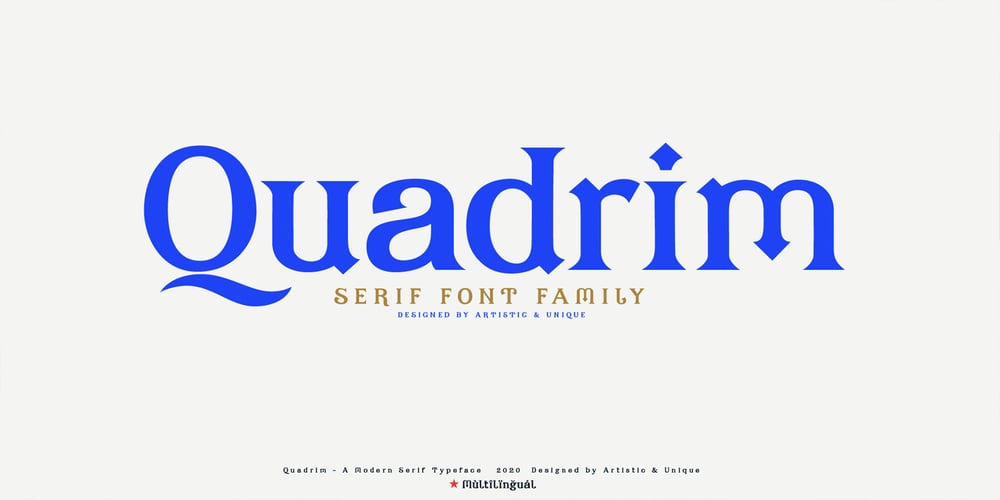
Quadrim
Quadrim font
Quadrim Font Family was designed by Osman Taner Kucukgenc and published by Artisticandunique. Quadrim contains 12 styles and family package options. Quadrim – Serif Font Family – Multilingual -12 Style (2020)On the basis of Quadrim, it is a mix of the old-fashioned Roman serif family. The old style serif combination combines, modern aesthetics with fantasy and Art Nouveau serif fonts, making Quadrim a versatile family that can be used in many different design projects.This font offers a wide variety of styles to help you discover the best mood for your projects, from body text to large titles, from classic styles to modern and bold styles.It is very suitable for book and magazines, magazine covers, editorial, titles, websites, logos, invitations, branding, advertising and more.CHARACTER RANGES : Basic Latin, Latin-1 Supplement, Latin Extended-A, Latin Extended-B, General Punctuation, Currency Symbols, CJK Symbols And Punctuation, Private Use Area (plane 0),With this font you can create your unique designs.If you have a question, please contact me.Have a good time.